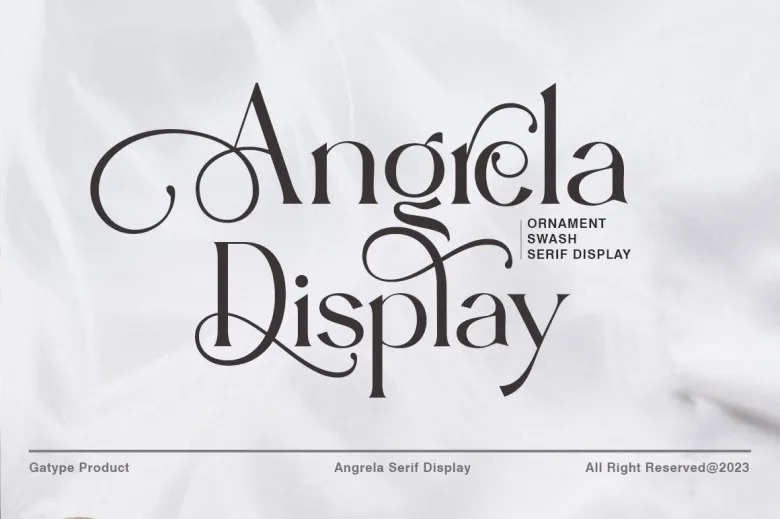
Angrela Display Font
Angrela Display is a highly decorative serif typeface that combines luxury and sophistication with modern design elements. It features intricate details and a polished aesthetic, making it a perfect fit for high-end branding, magazine headlines, and stylish text overlays. This unique typeface is ideal for projects where an elegant and refined touch is needed.
Versatility is one of Angrela Display’s key strengths. Its timeless design makes it suitable for various creative applications, including logos, social media branding, and website headers. The ornamental elegance of this typeface ensures that it elevates any text, adding a level of sophistication that enhances the overall visual appeal of the project.
Whether used for branding, magazine layouts, or enhancing photos with stylish overlays, Angrela Display brings a unique and sophisticated finish to any text or design. Its luxurious feel and modern elegance make it a popular choice for designers seeking to create a lasting impact in high-end projects and polished visuals.